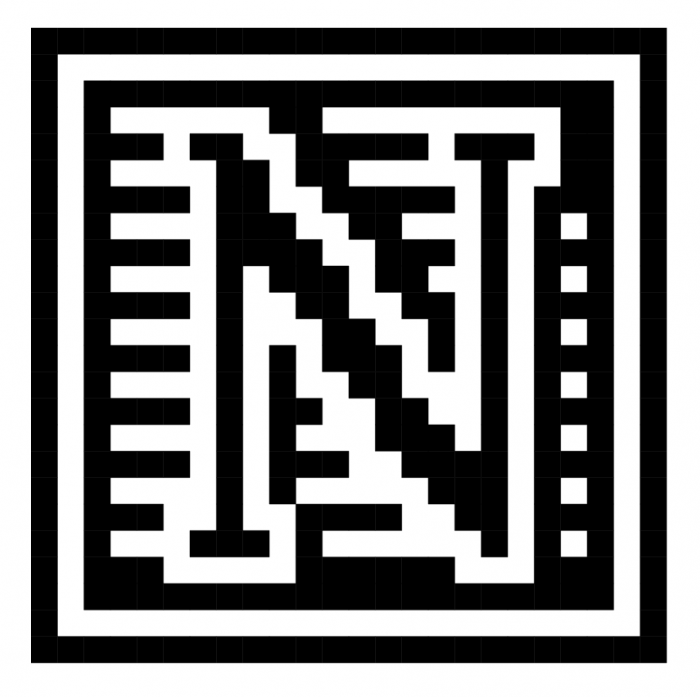
Cool font, but why is there such a contrast of strokes in the letter N, why isn't the diagonal thick?
@Phil Strahl (philstrahl) - I think that reversing/flipping the diagonal of the "Z" would serve the "N" quite well.
@Dmitriy @Goatmeal Thx for the feedback, I don't know what happened there! Did now another pass of the N and it looks much better!
Just for fun, here you are another interpretation of the N... Hope you like it.
Fun controversy, and nice font.
@elmoyenique I like it very much, thank you! Font is now updated with your N :)